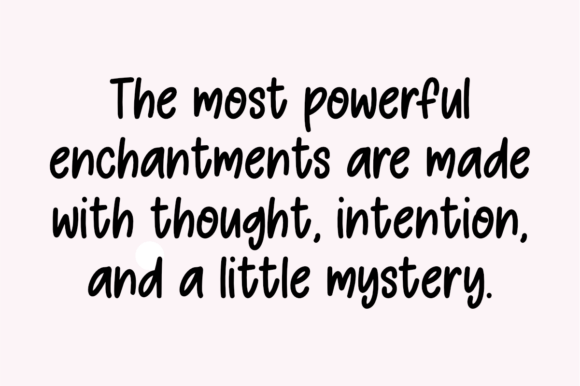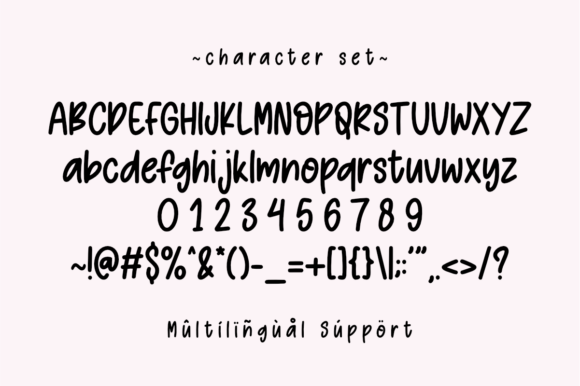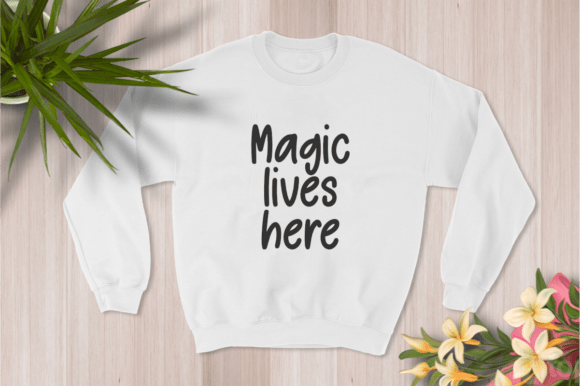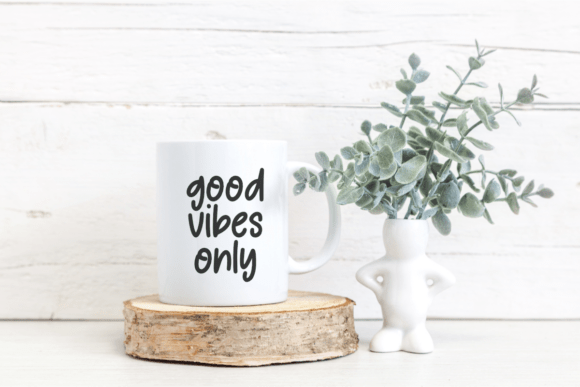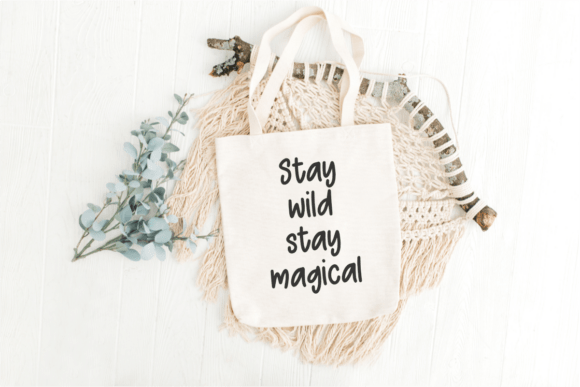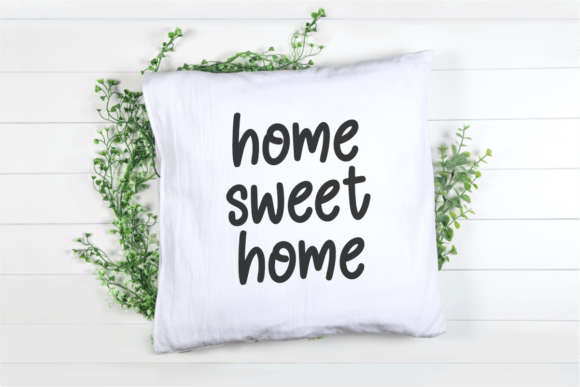
Introduction to Smart Magic Font
Smart Magic is a cute and playful handwriting font, perfect for planners, stickers, cards, quotes, and craft projects.
Ideal for creative moms who love DIY, journaling, and Cricut crafts .
Key Features of Smart Magic Font
Why Choose Smart Magic Font?